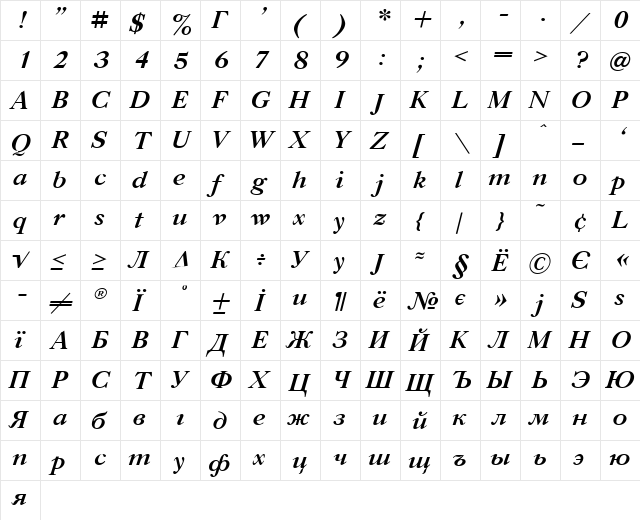
GazetaTitul Bold Italic Font Preview
Design Context for GazetaTitul Typeface
GazetaTitul takes a measured approach to typography — its balanced proportions and neutral character make it a reliable workhorse for both digital and print work. The slanted form adds forward momentum and visual energy. The heavy weight commands attention and anchors typographic hierarchies.